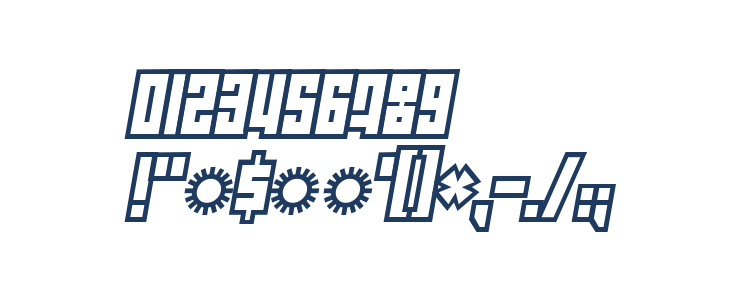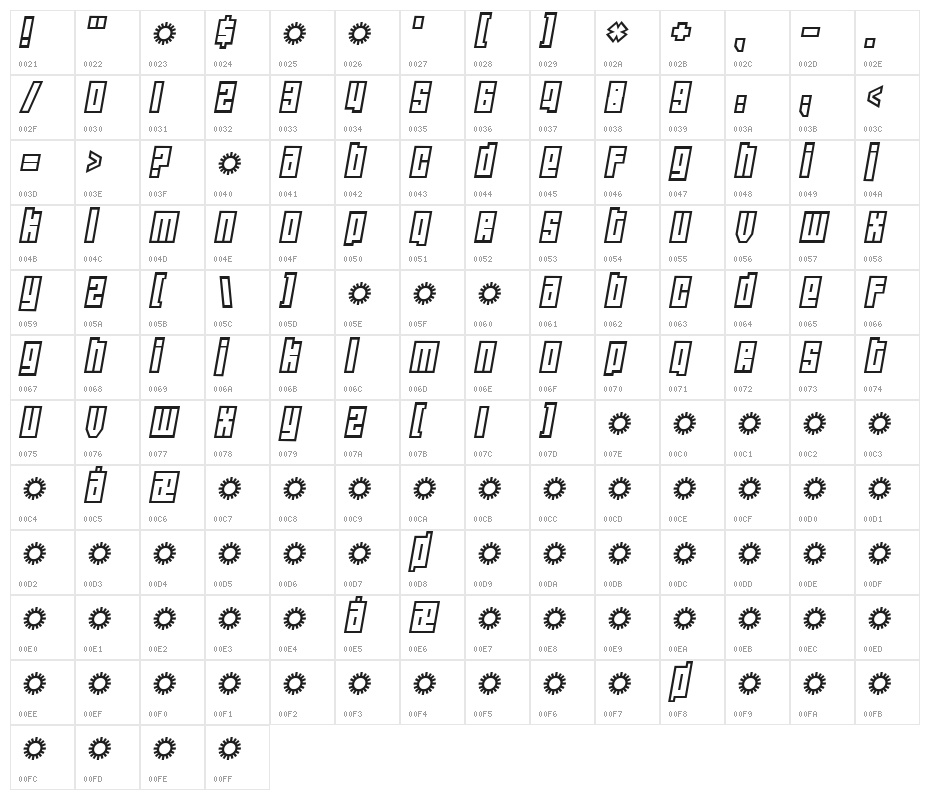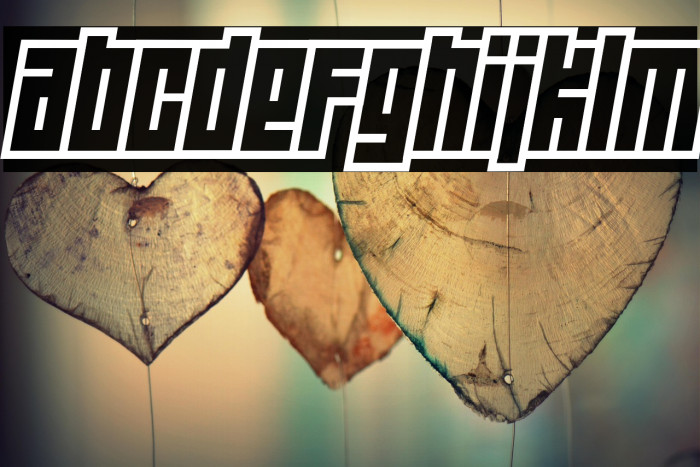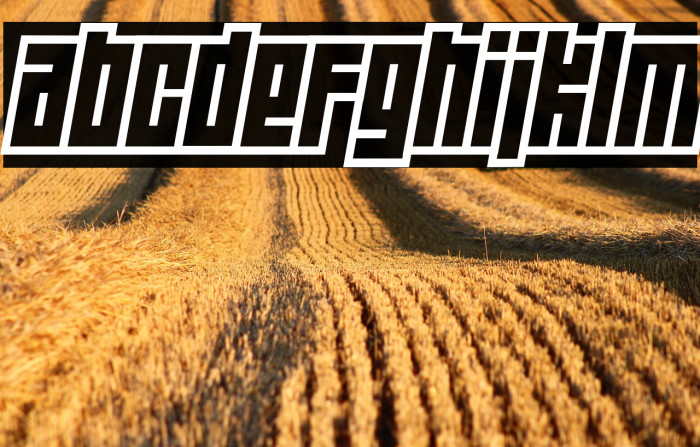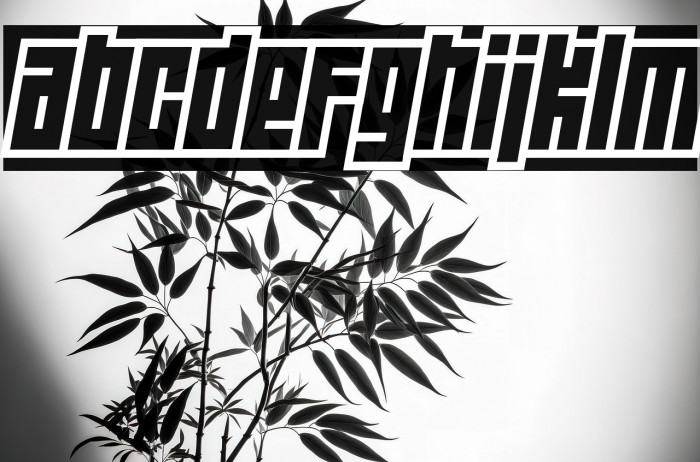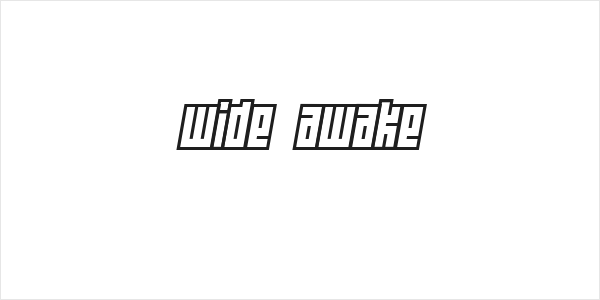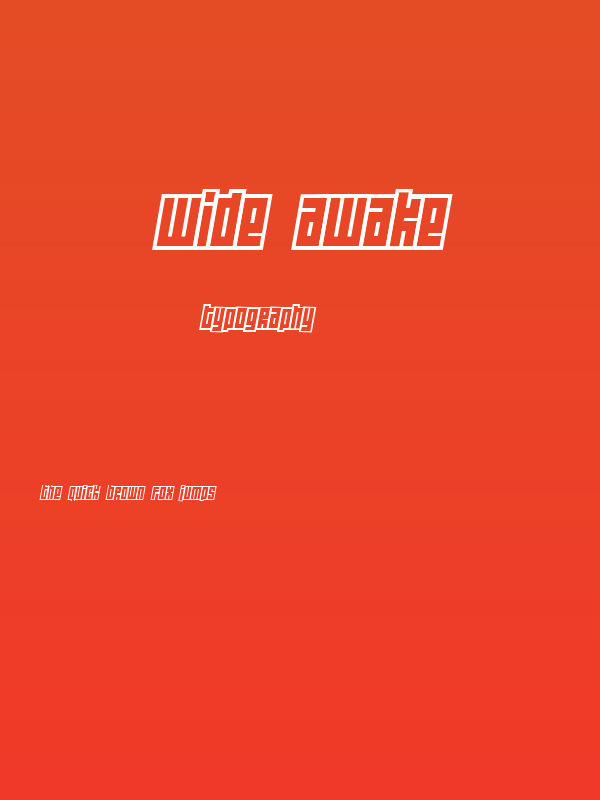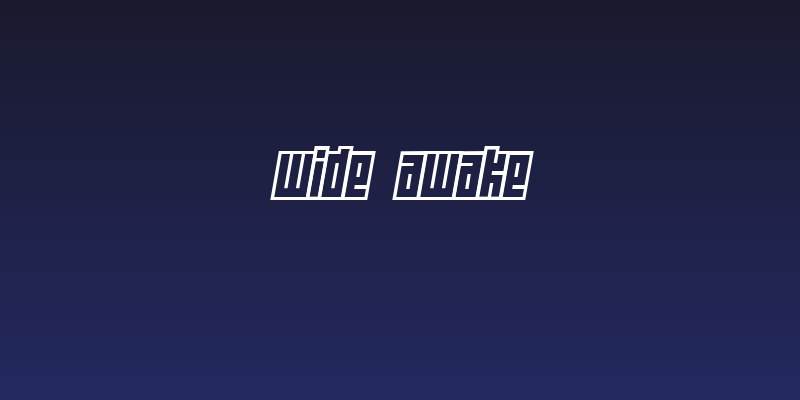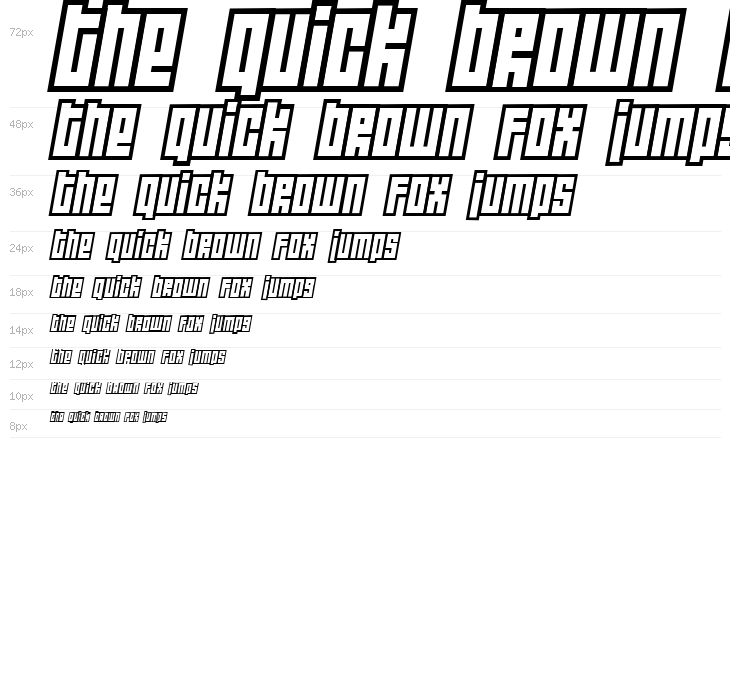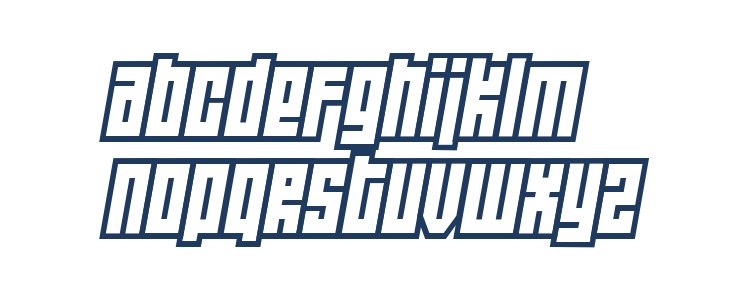
Wide awake Font
Wide awake Description
This font features a bold, geometric design with a strong emphasis on angular shapes and sharp edges. The characters are outlined, creating a striking visual effect that makes each letter stand out. The uppercase and lowercase letters maintain a consistent style, with a uniform height and width that gives the font a cohesive look. The numbers and special characters follow the same design principles, ensuring a harmonious appearance across all elements. The font's unique style is both modern and futuristic, making it ideal for projects that require a bold statement.
| Proposed Projects | Ideal for futuristic designs, tech branding, video game titles, and eye-catching posters. |